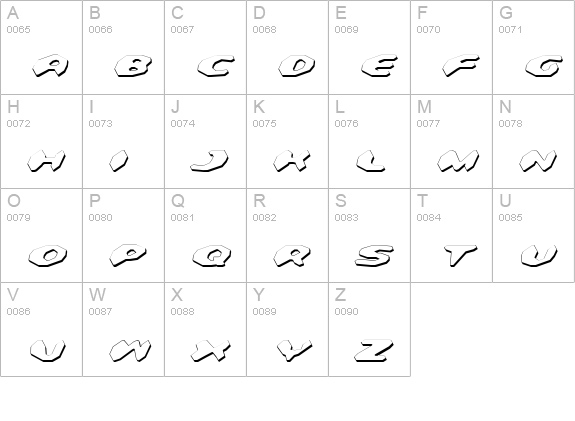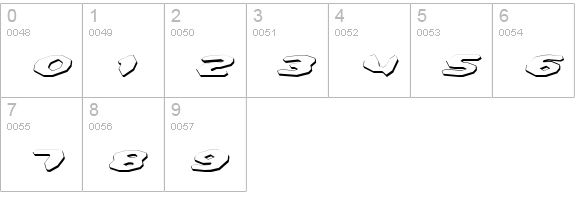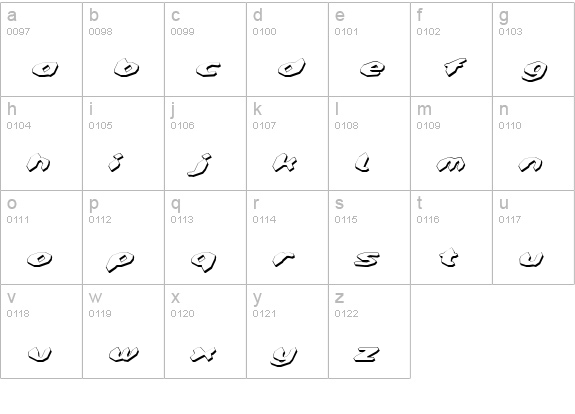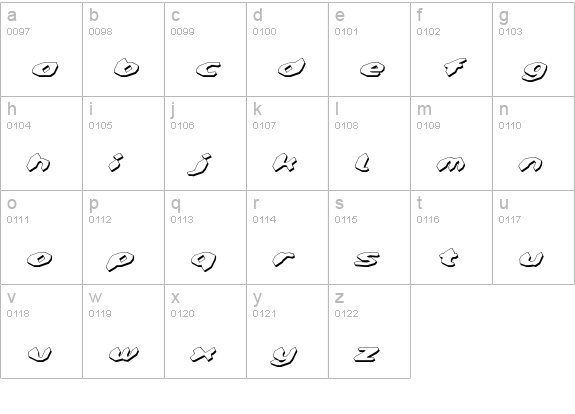
Detonator Shadow Italic is a distinctive, italic variant in the Detonator typeface family \xE2\x80\x94 well suited to design and typography projects.
Detonator Shadow Italic font is a dynamic and bold typeface that exudes a sense of power and impact. With its sleek slanted design and strong lines, this font is perfect for making a statement in any design project. The italics add a touch of sophistication and flair, making Detonator Shadow Italic an ideal choice for headlines, logos, and branding materials. And the best part? Detonator Shadow Italic font is available for free download at FontsMarket.com. So you can easily add this striking font to your collection without any cost. Don't miss out on the opportunity to enhance your designs with the impactful style of Detonator Shadow Italic font. Download it today and watch your creations stand out from the rest.